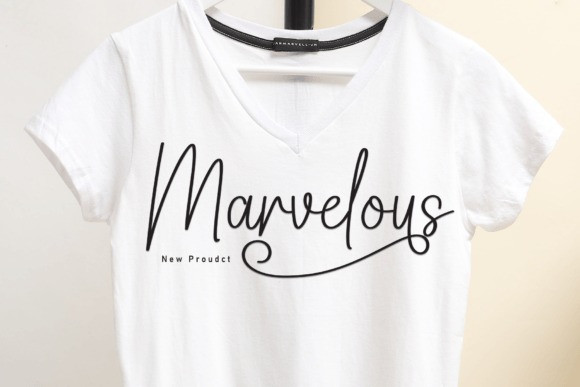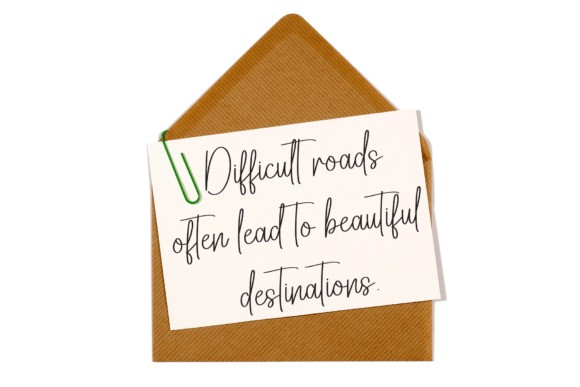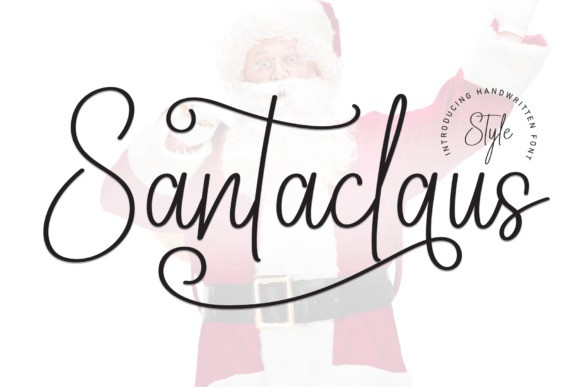
Santaclaus Font
Santaclaus Font is a sweet and friendly handwritten font. Its natural and unique style makes it incredibly fitting to a large pool of designs. The only limit is your imagination!